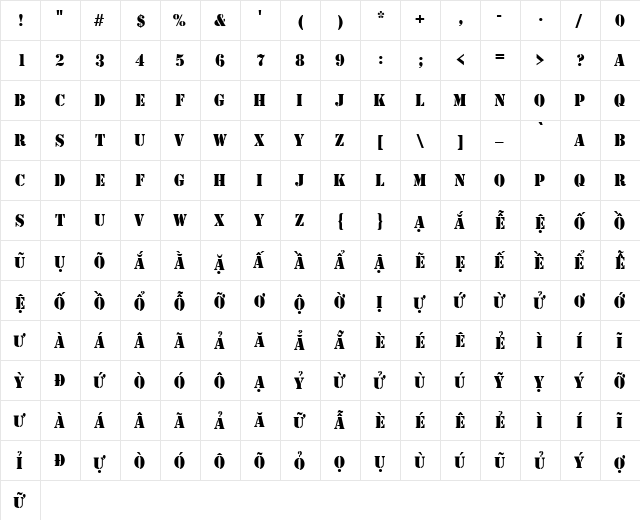
VI Huong Duong Normal
Design Context for VI Huong Duong Typeface
VI Huong Duong is a composed and adaptable typeface that performs quietly and consistently across a wide range of design contexts.